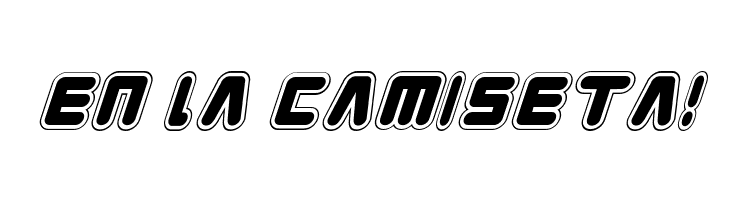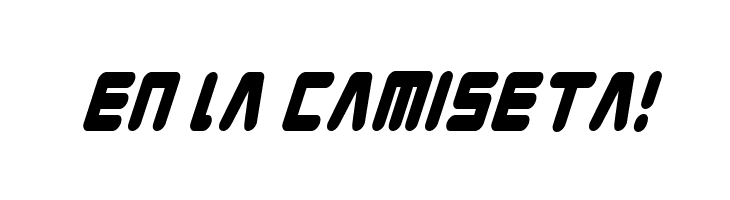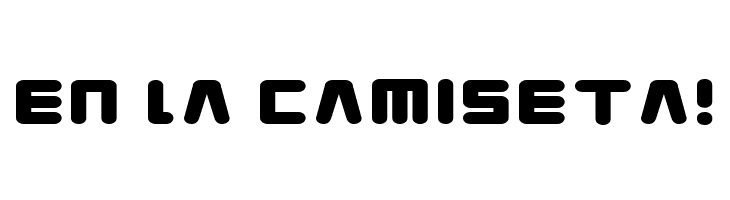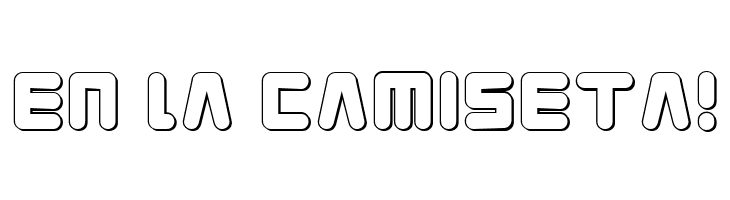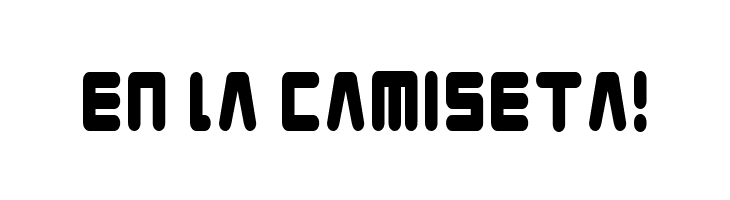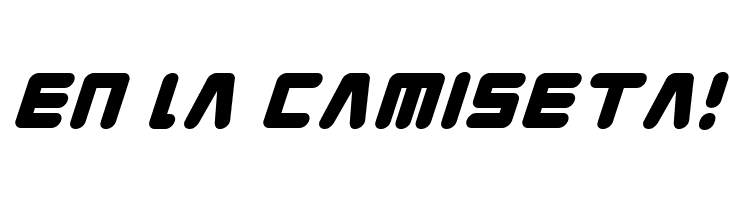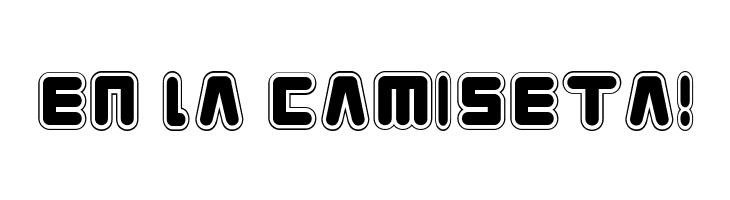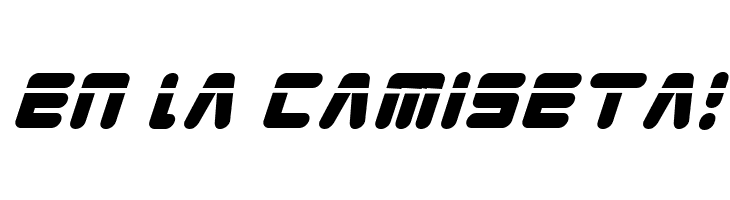
Polyglot-Demo Font
- Font: Polyglot-Demo
A bold, italic, modern font with thick outlines and a futuristic style.
A modern, condensed italic font with bold, rounded characters and a futuristic style.
A bold, futuristic font with rounded edges and geometric shapes.
A futuristic, tech-inspired font with bold, geometric outlines and a 3D effect.
A bold, futuristic font with rounded edges and a condensed, tech-inspired design.
A bold, italicized font with a futuristic and dynamic design.
A bold, futuristic font with rounded edges and a double-outline effect.
A bold, italicized font with a futuristic and sleek design, ideal for tech themes.